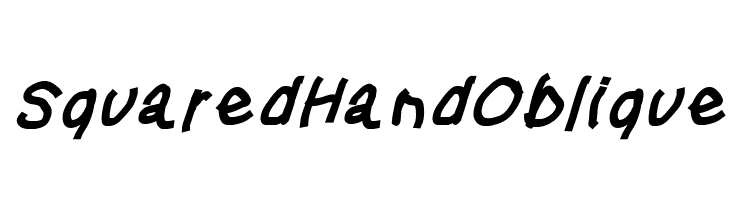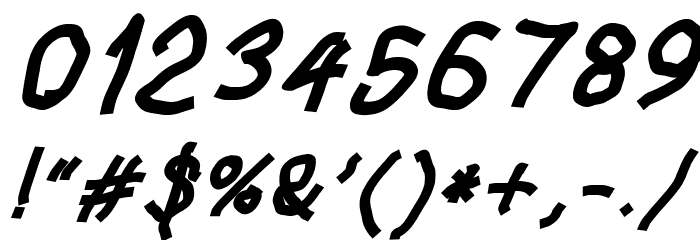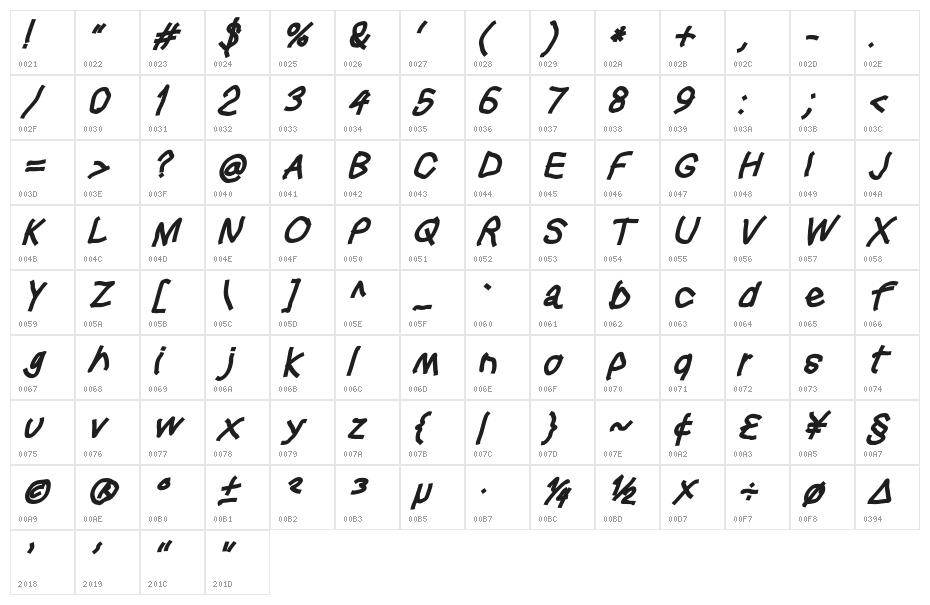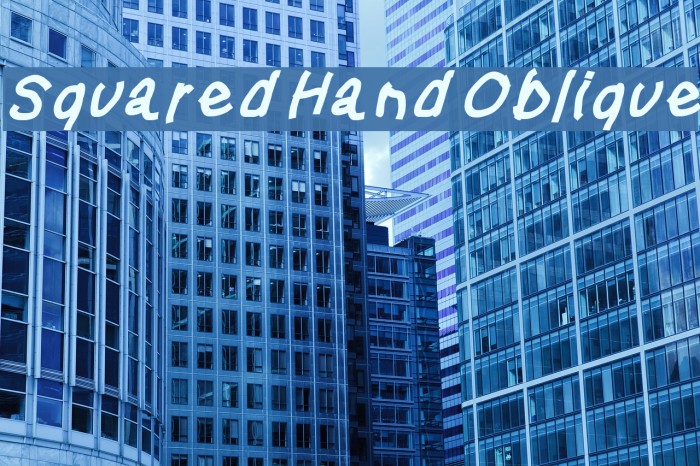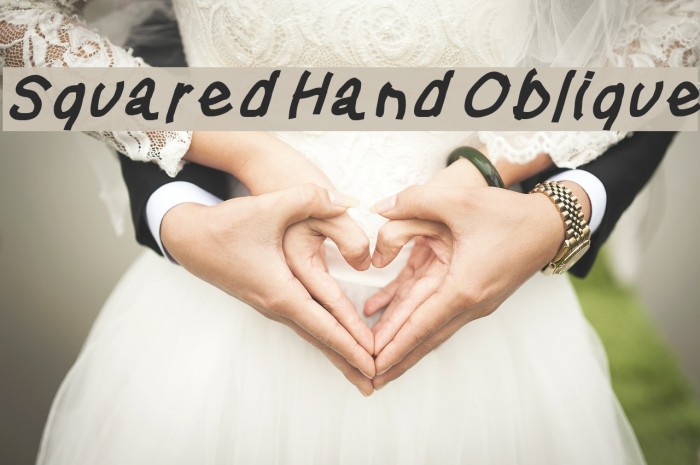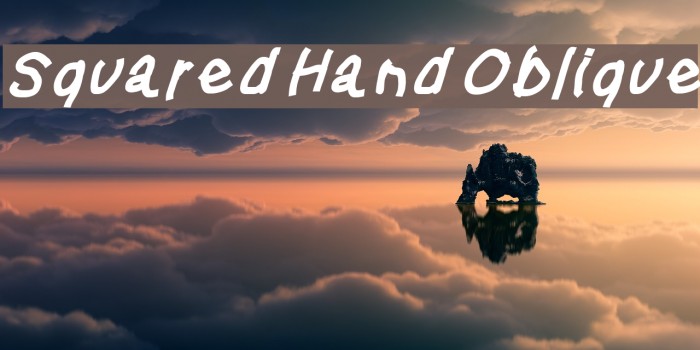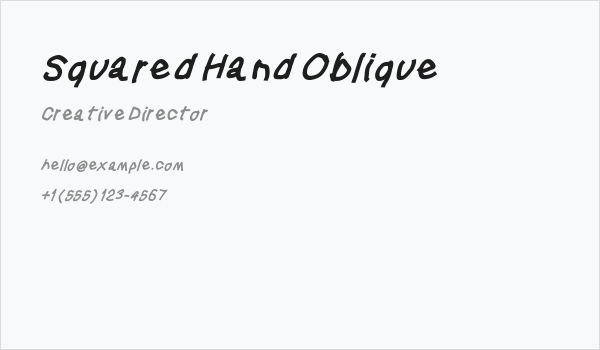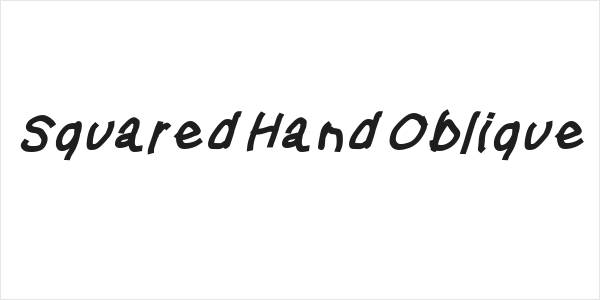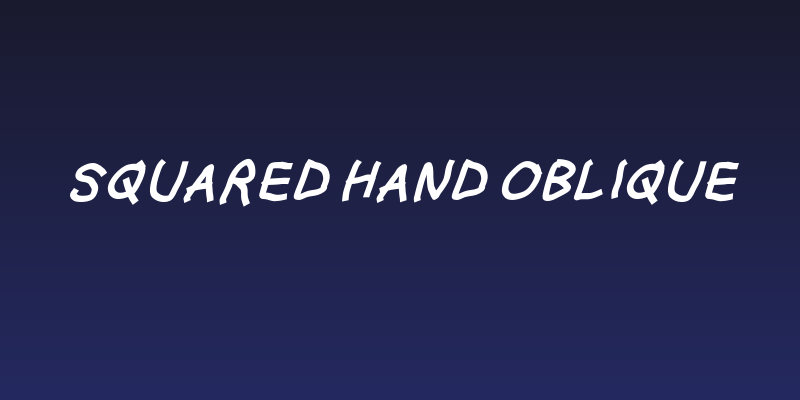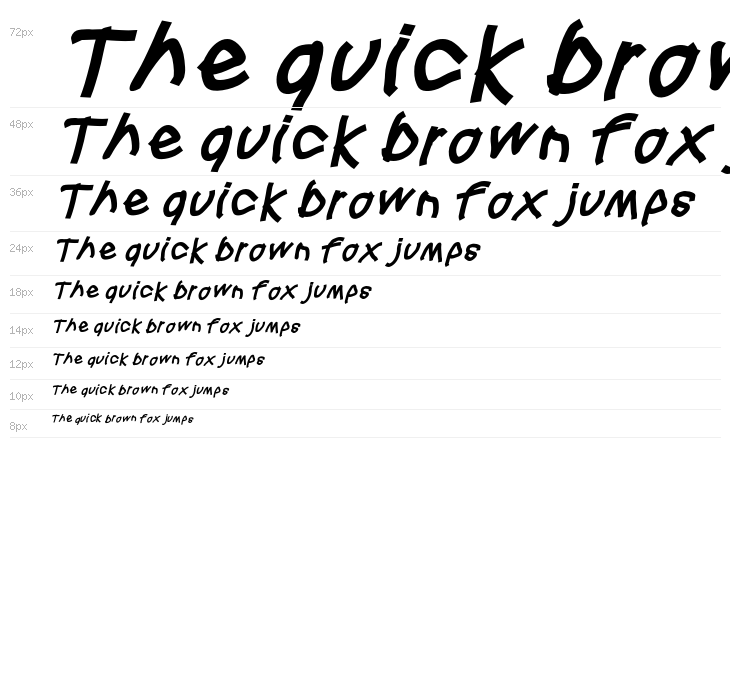
Squared Hand Oblique Font
Squared Hand Oblique Description
This font exhibits a bold, dynamic style with a distinct oblique slant, giving it a sense of movement and energy. The characters are crafted with a brush-like appearance, featuring irregular strokes that add a handwritten, artistic flair. The uppercase and lowercase letters maintain a consistent style, with rounded edges and a slightly condensed form. Numbers and special characters follow the same design principles, ensuring uniformity across all glyphs. The overall look is both playful and assertive, making it suitable for creative and expressive projects.